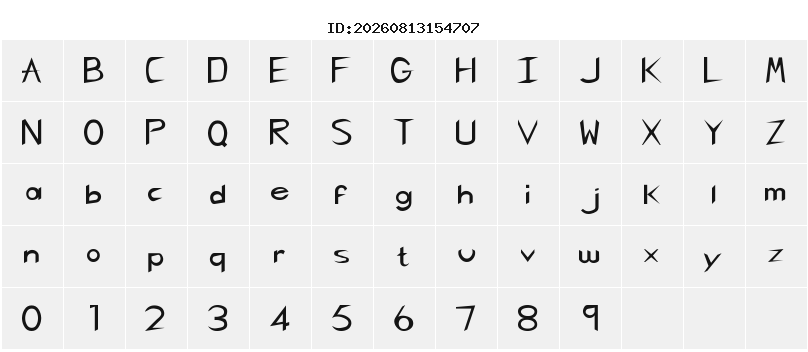
RSCharlieChan Preview
• Font Name: RSCharlieChan
• Font ID: ALLTYPE:RSCharlieChan Regular:ATECH
• Full Font Name: RSCharlieChan
• Version: Converted from c:-lbattfCHARLIE.TF1 by ALLTYPE
• PostScript Name: RSCharlieChan
About RSCharlieChan.ttf
RSCharlieChan.ttf is a modern, elegant sans-serif font designed for ultimate readability and visual harmony. Perfect for branding, headlines, web design, and print materials.